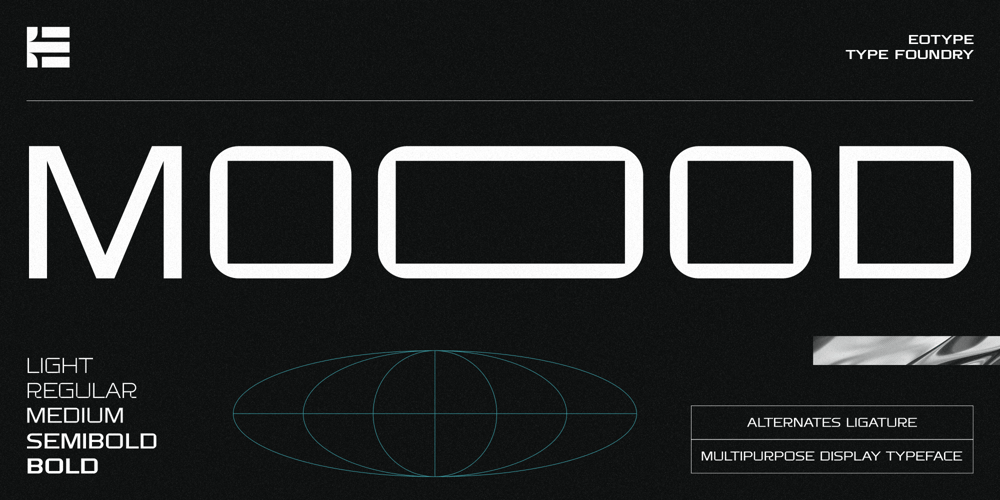
Moood Font Family was designed by Fajar Ramadan and published by Eotype. Moood contains 5 styles and family package options. Moood is a new modern grotesque typeface consisting of 5 styles. The glyph shape characterized by strong geometric outline with a little smooth rounded edges. Moood font suitable for various projects such as logos, brands, posters and many more. This font comes with alternate and ligature features.